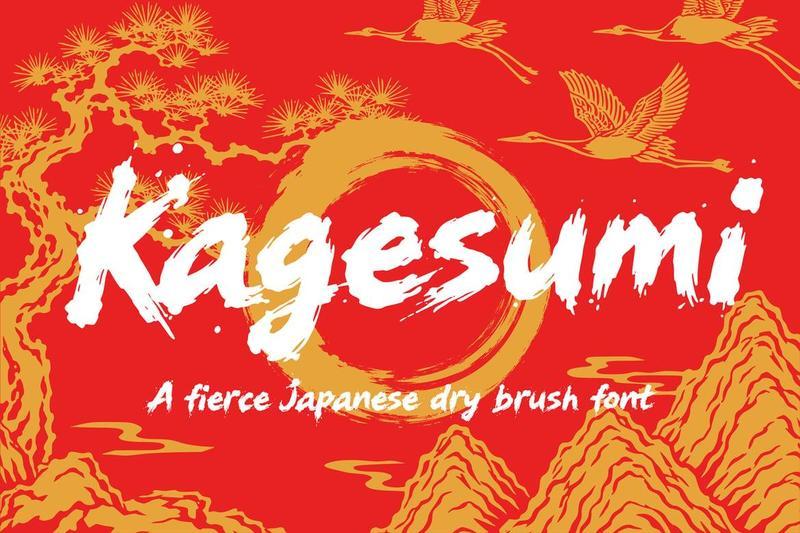
**Kagesumi Brush** is a fierce Japanese dry brush display font inspired by sumi ink strokes, traditional calligraphy, samurai culture, and bold hand-painted lettering. Every letter is crafted with rough brush textures, sharp movement, and expressive ink details, giving the font a strong, energetic, and dramatic appearance.
This font is perfect for Japanese-themed posters, titles, action branding, oriental arts graphics and any project that needs a bold brush style with an Asian-inspired atmosphere.
With its raw strokes and dynamic letterforms, KageSumi brings the feeling of fast brush movement, shadowy ink, and powerful visual impact to your design. It works great for display use, especially when you want your typography to look strong, handmade, and full of attitude.